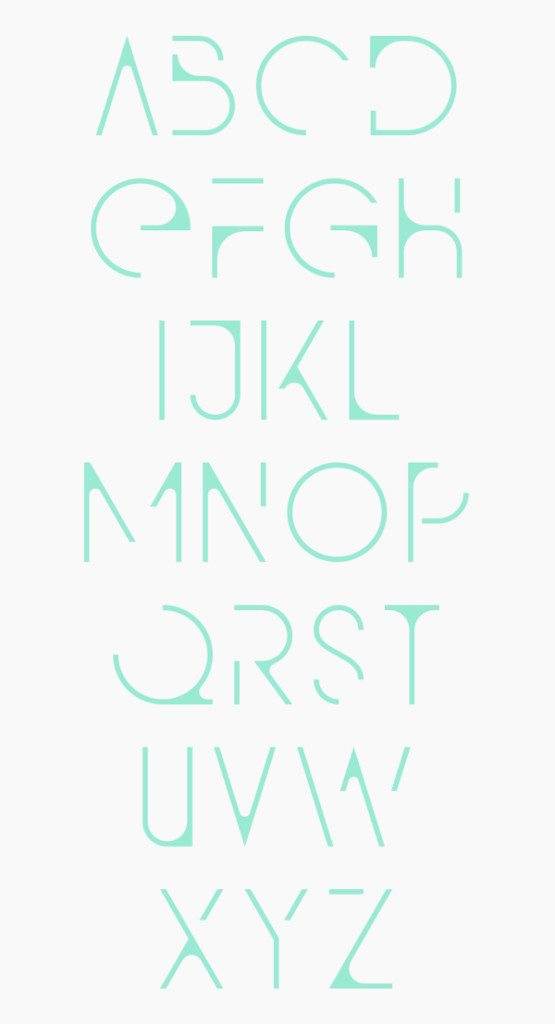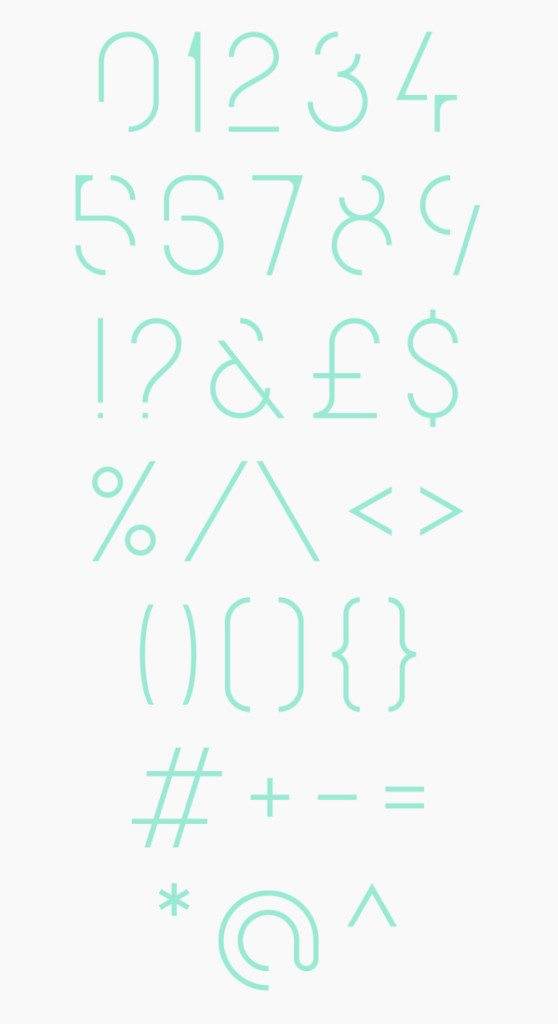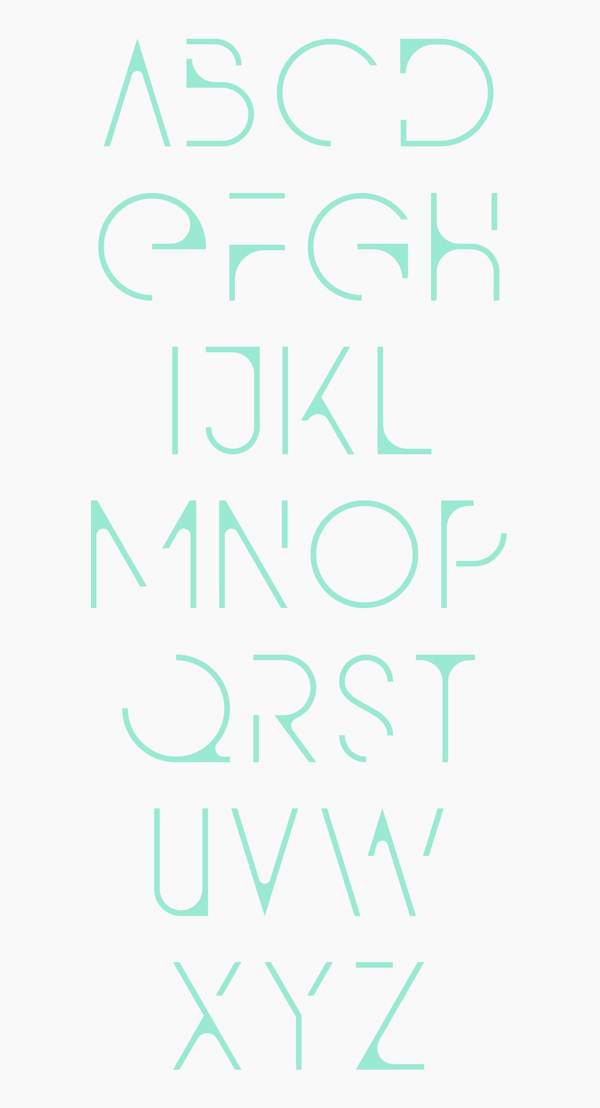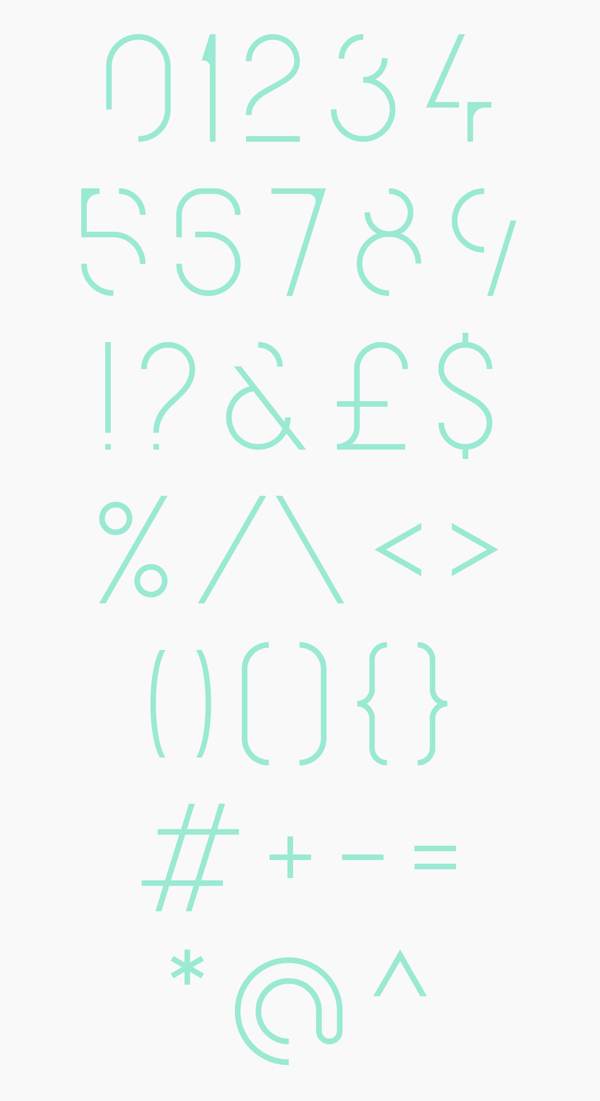
Free Font Of The Day #107 – QG Font
QG Font
The font is a free sans-serif font with simple curves and abstract lines, leaving something to the imagination. The curved ‘coffee stain’ corners add a little weight and prevent the aesthetics from being too rigid. Designed by Anthony James.